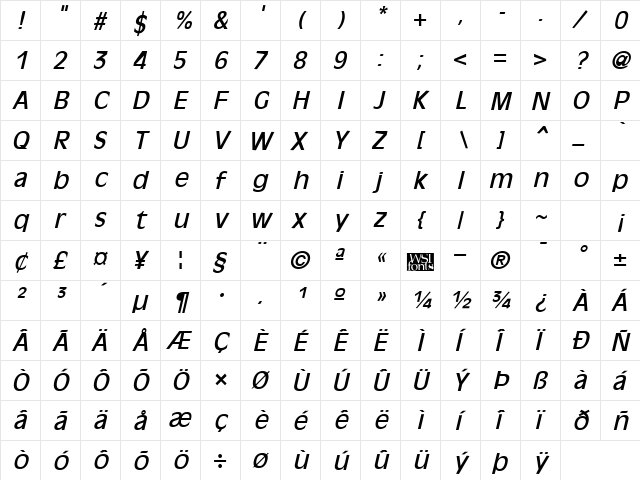
OliviaAntique Italic
Design Context for OliviaAntique Typeface
OliviaAntique has the warm character of retro typography — evoking diners, record sleeves, and the golden age of print advertising. Its italic angle brings a sense of urgency and motion to the letterforms.
Ideal for diner signage, record shop branding, 70s/80s-themed projects, and heritage product labels.
Font Pairing: Combine OliviaAntique with a simple slab or neutral sans — period-accurate companions reinforce the vintage feel without competing for attention.
Pro Tip: Lean into OliviaAntique's period character by pairing it with aged paper textures, muted colour palettes, and vintage illustration styles.